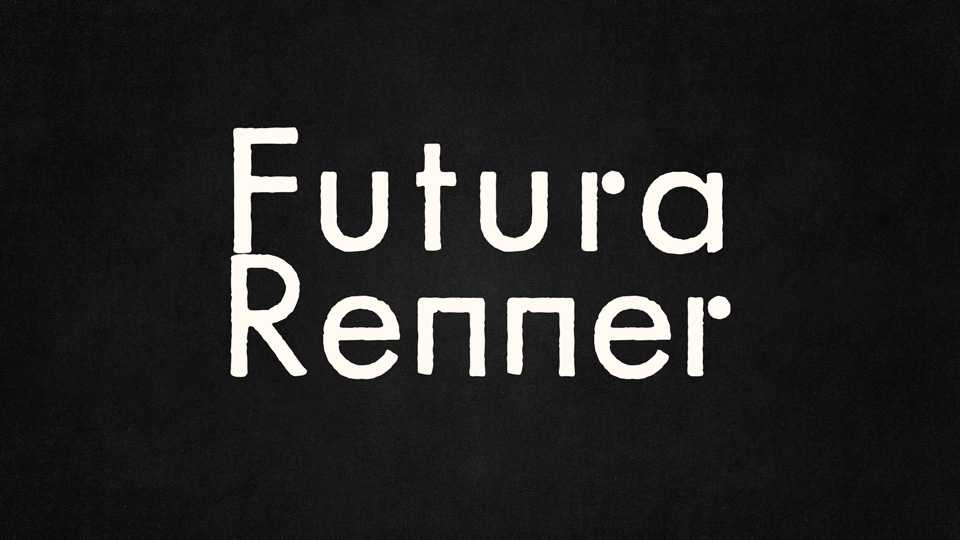
Download Futura Renner typeface, a sans serif font family in two weights, a digital version of Futura lead character belonging to the probably the first draft of Futura as we know it.